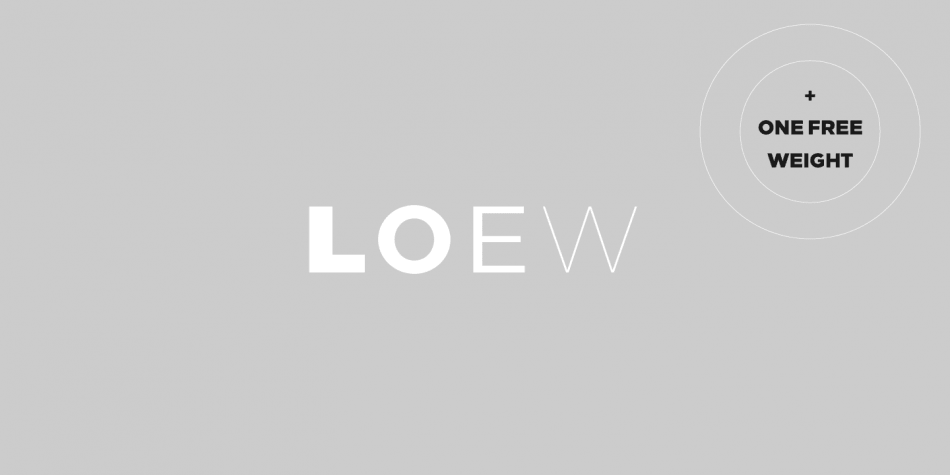
Loew Font
Introducing Loew font. It’s a geometric-based sans serif font that is influenced by the early industrial designers. Loew font family includes 16 unique styles from Loew Thin Italic to Loew Black Italic. Details include over 800 characters with alternative lowercase a, e and g. Seven variations of numerals, true small caps with accents, manually edited kerning and Opentype features.
Loew Sans Serif Font